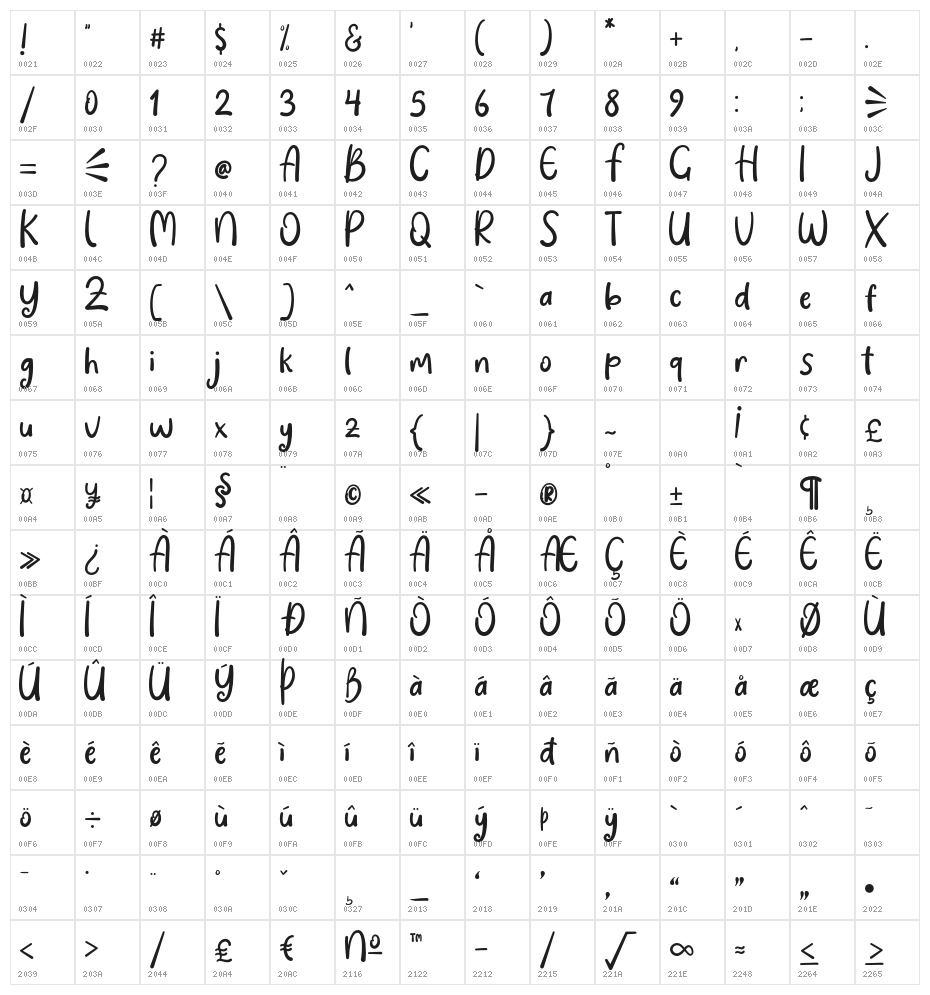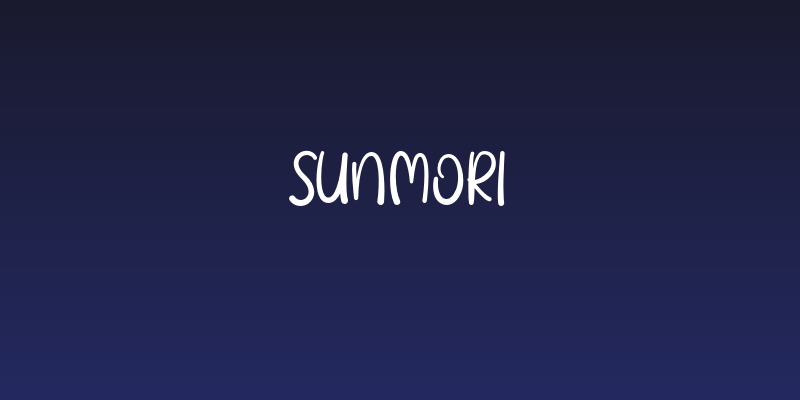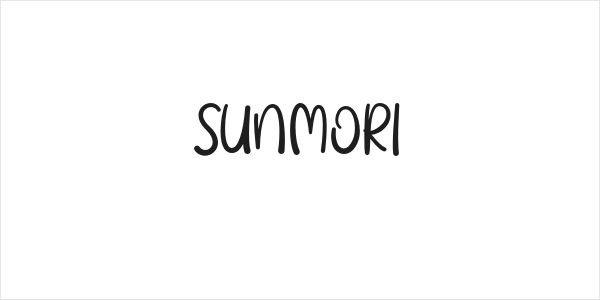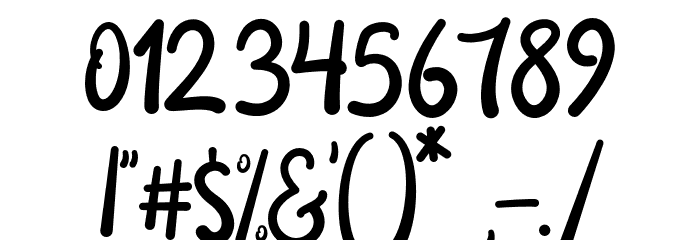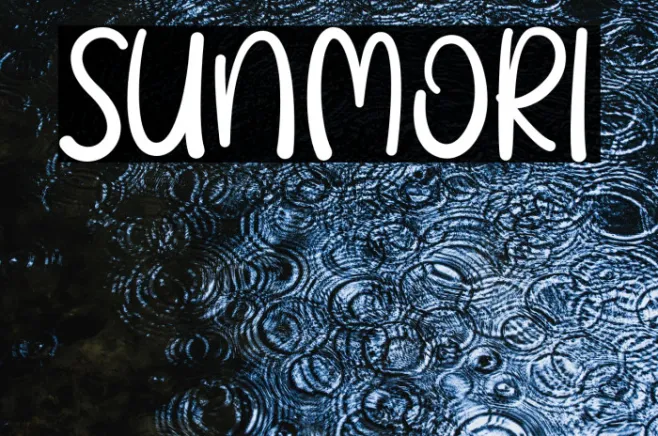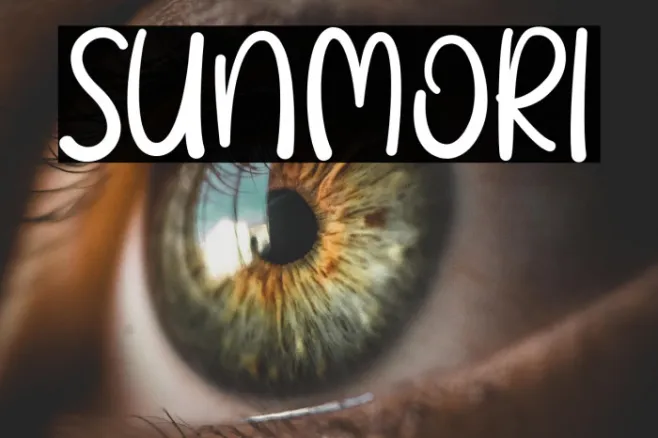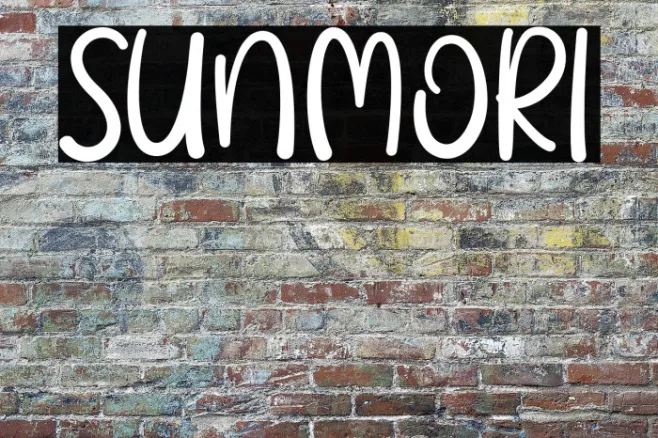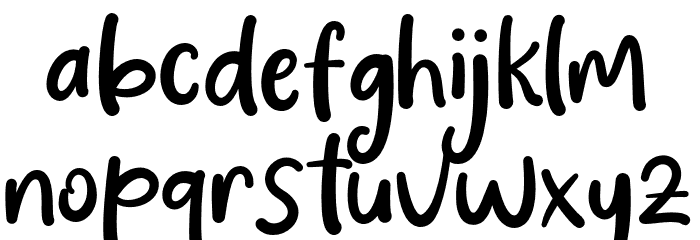
SUNMORI Font
SUNMORI Description
This playful and energetic font features a handwritten style with smooth, rounded edges and a casual, friendly appearance. The letters are slightly slanted, giving a dynamic and informal feel. The uppercase and lowercase characters maintain a consistent flow, while the numbers and special characters complement the overall design. This font's lively and approachable nature makes it suitable for projects that require a personal touch or a sense of fun.
| Proposed Projects | Ideal for greeting cards, children's books, playful branding, and social media graphics. |